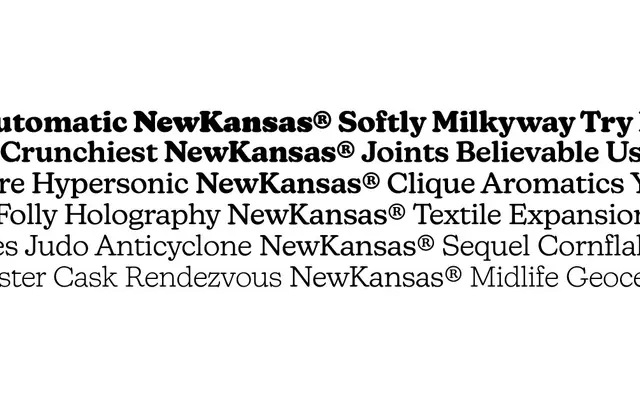
New Kansas
New Kansas specimen from Newlyn
A seven-weight reimagining of Cooper Black by Miles Newlyn, extended with swash italics and a tall x-height for use across both display and text settings.
Built on the foundations of Oswald Cooper's Cooper Black, New Kansas widens the family to eight upright weights from Thin to Heavy and adds three italic variants including Swash and ExtraSwash cuts. The tall x-height extends the typeface's reach beyond headline use into longer copy, while the bulbous serifs and rounded stroke endings retain the warmth of the original. The swash italics give designers expressive options rarely found in families of this lineage.
A contemporary reimagining of Cooper Black, New Kansas retains the bulbous, rounded serifs and heavy character of Cooper's original, placing it firmly in the display serif category with its expressive, rounded stroke terminals.